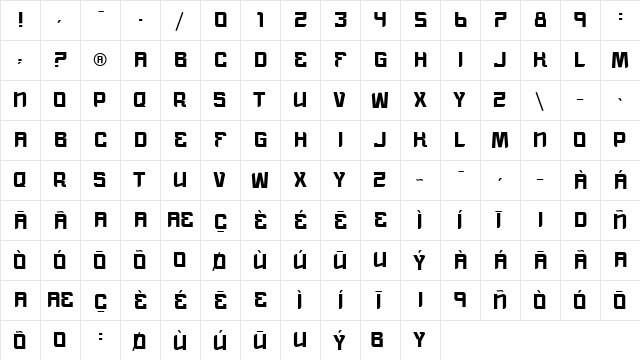
vtks morning rain Regular
| Foundry | douglas vitkauskas |
| Designer | DOUGLAS VITKAUSKAS |
Design Context for vtks morning rain Typeface
vtks morning rain offers clean, dependable letterforms without strong stylistic allegiance, making it a practical choice for designers who need flexibility.